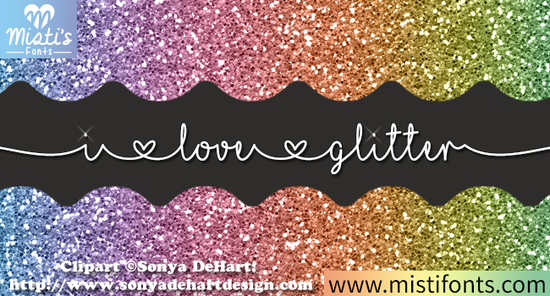
If you’re a crafter looking for a font that adds instant sparkle to your projects, the I Love Glitter Font is worth a closer look. Designed by the MF team, this whimsical lettering style brings a playful, shiny feel to anything you create from invitations to t-shirt designs. It’s one of those fonts that stands out without trying too hard, and it works beautifully in both digital and physical crafting.
What makes the I Love Glitter font special for crafters?
Unlike standard script fonts, the I Love Glitter font has a hand-drawn, slightly uneven quality that makes it feel personal and fun. It’s not a literal glitter texture (you add that yourself with foil or paper), but the letterforms are designed to look as though they were drawn with a glitter pen. This makes it ideal for projects where you want a handmade, joyful vibe perfect for birthday cards, party decorations, or custom mugs.
How can you use this font in Cricut projects?
The I Love Glitter Font shines in layered paper crafts. Because the letters are bold and connected, they cut well on a Cricut machine without falling apart. Here are a few practical ways to use it:
- Shadow boxes – Use the font to write names or short quotes in the top layer, then back it with a contrasting cardstock for a 3D effect.
- Printable cards – Print the font directly onto glitter cardstock or use a foil quill to add metallic shine.
- T-shirt designs – Pair it with a simple graphic for a cute, hand-lettered look. Because the font is script-like, keep the phrase short (e.g., “Shine Bright”).
- Scrapbook titles – The whimsical lettering draws the eye without overwhelming your photos.
Where does this font fit best in your design toolkit?
Think of the I Love Glitter Font as your “special occasion” script. It’s not the font you’d use for a formal wedding invitation (you’d probably want something like Baseball Classic Font for that), but it’s perfect for children’s party invites, teacher appreciation gifts, or any project where you want to communicate lighthearted joy.
It also pairs well with other script fonts. For example, you could use Heart Style Font for the main heading and then add the I Love Glitter font for a subheading or accent word. The contrast between a clean script and a playful one adds visual interest without looking messy.
Print-on-demand sellers might find this font especially useful for products like mugs, phone cases, and tote bags. Short phrases like “Dream Big” or “You Are My Sunshine” look great in this style, and the font’s slightly irregular letters feel authentic not like a generic computer font.
Practical tips to get the most out of this font
- Layer it with foil or glitter vinyl. The font’s thick strokes are ideal for heat-transfer vinyl. Use a glitter HTV and a weeder tool to create shiny lettering on bags or apparel.
- Use a fine-point pen in your Cricut. If you want a drawn look, load a glitter pen into the machine and let it write the font onto cardstock. The result looks like hand-lettering with a sparkly gel pen.
- Pair with a simple sans-serif font. Because this script is busy, keep the rest of your text clean. Try a free sans-serif like Montserrat or Lato for secondary copy.
- Test the size before cutting. At very small sizes (below 20pt), the thin parts of letters may not cut cleanly. Scale up to at least 1 inch tall for best results.